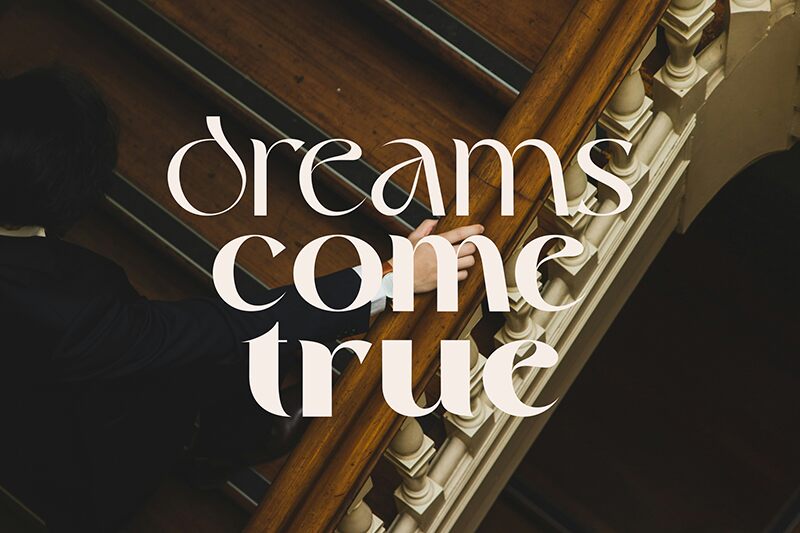
Grage
Grage font designed by Riyadh Rahman is a display typeface with an artistic and distinctive appearance. The free font showcases flamboyant characters that have decorative flair to them, making the final writing extravagant and eye-catching. Letters feature elegant and modern curves with high-contrast in width visible within each individual character.